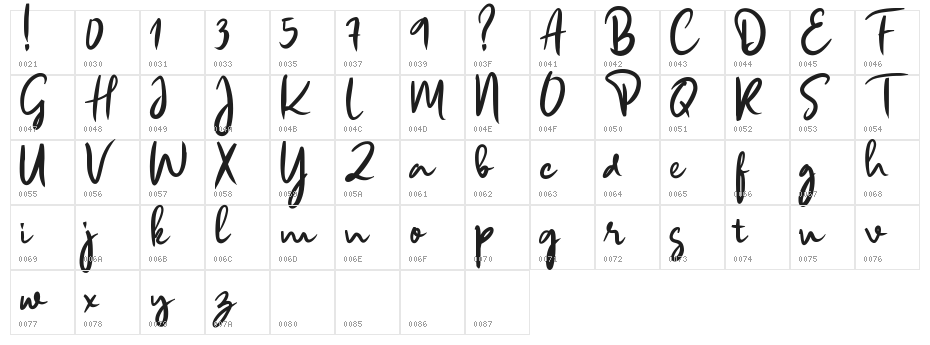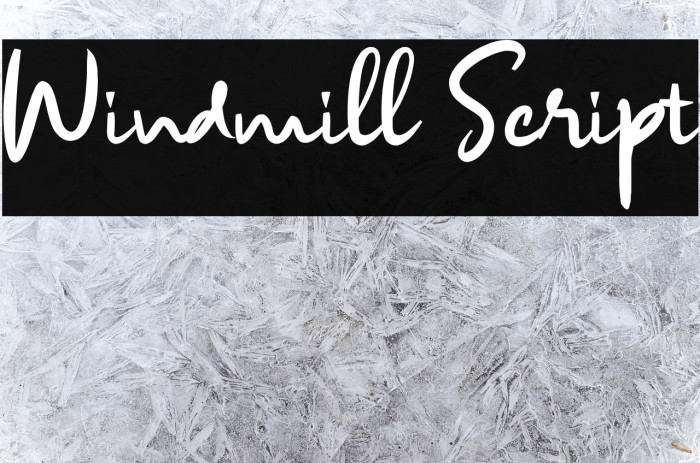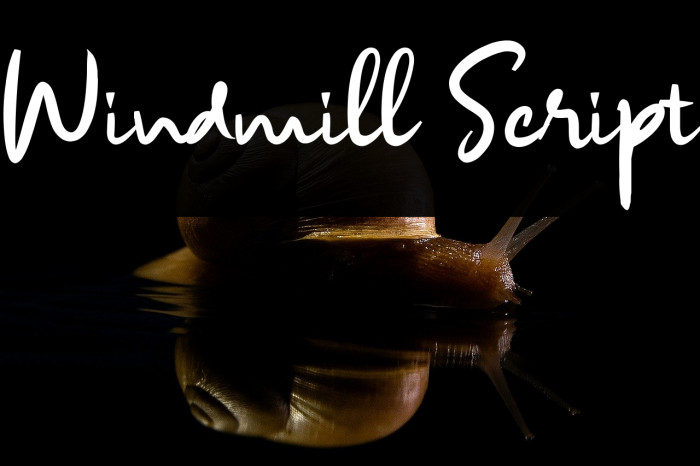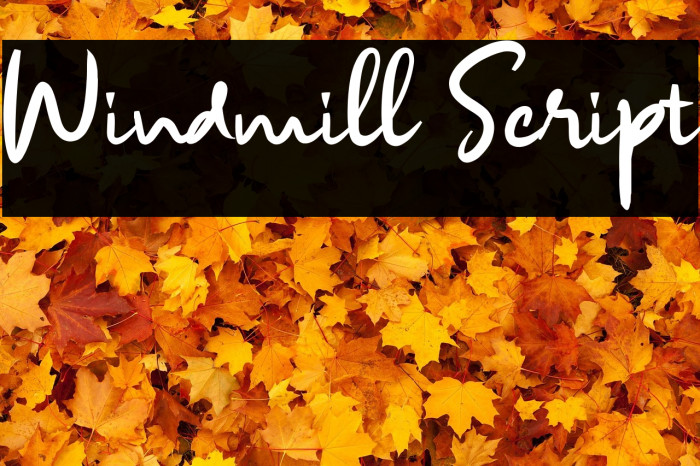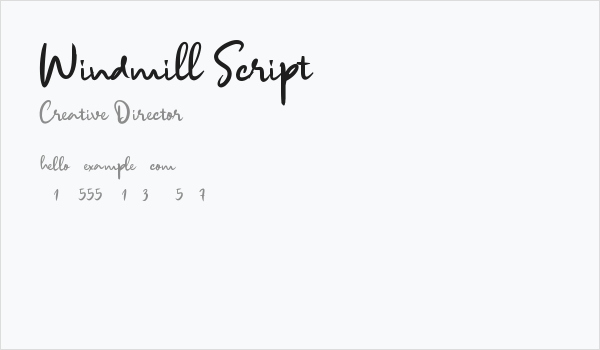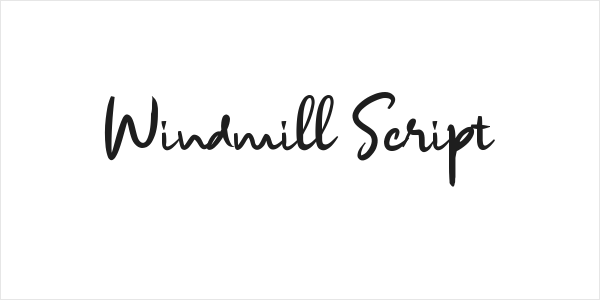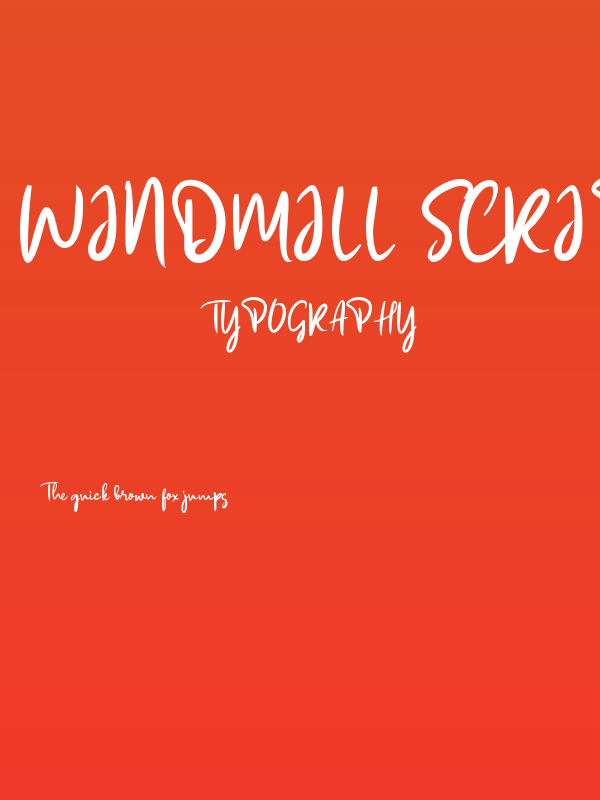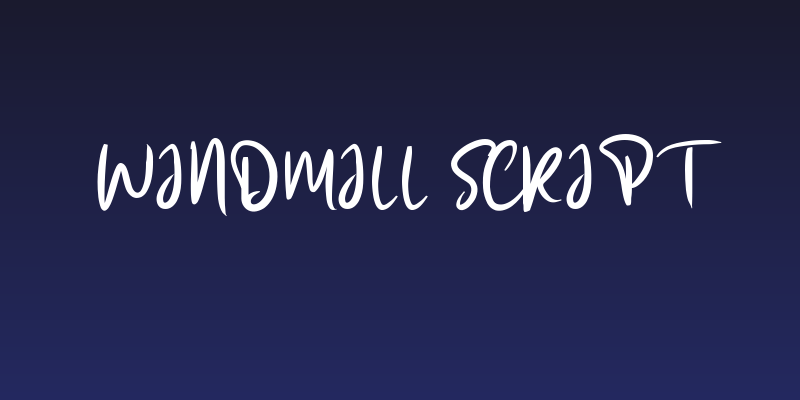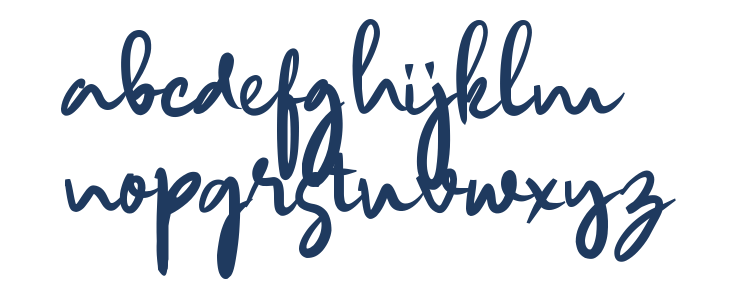
Windmill Script Font
Windmill Script Description
This font exudes a lively and expressive character, featuring a handwritten script style that is both elegant and playful. The letters are fluid and connected, with varying stroke widths that add a dynamic rhythm to the text. The uppercase letters are bold and slightly slanted, while the lowercase letters maintain a consistent flow, enhancing the overall cohesiveness. The numbers are distinct and maintain the script's fluidity, making them easily readable. The special characters blend seamlessly with the alphabet, ensuring a harmonious appearance across different text elements.
| Use Case | Logos, Headlines, Invitations |
| Proposed Projects | Ideal for wedding invitations, greeting cards, branding projects, and social media graphics. |